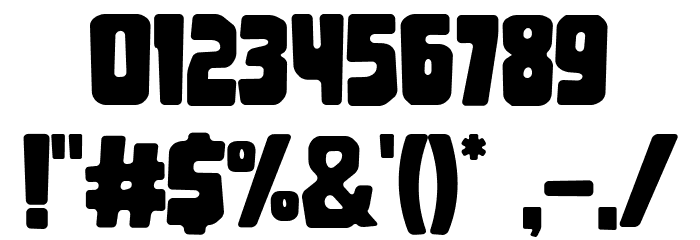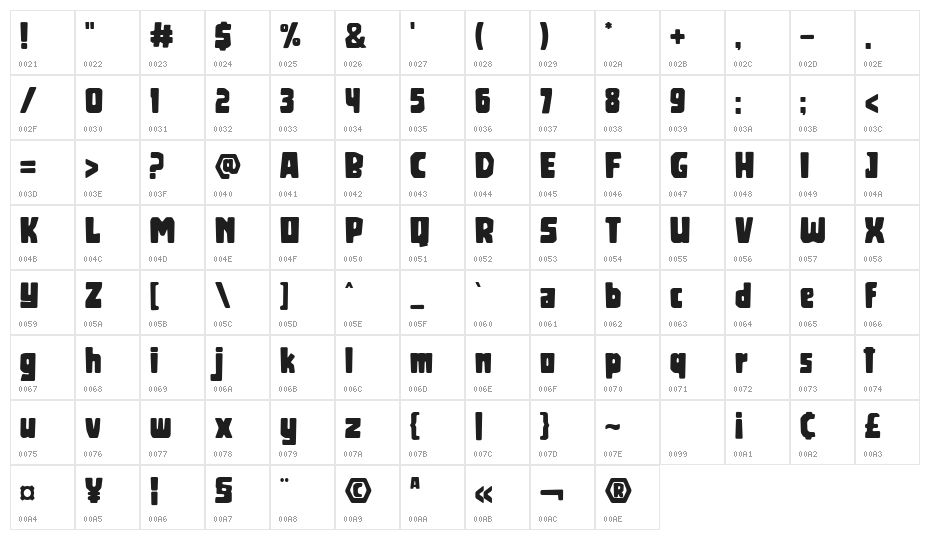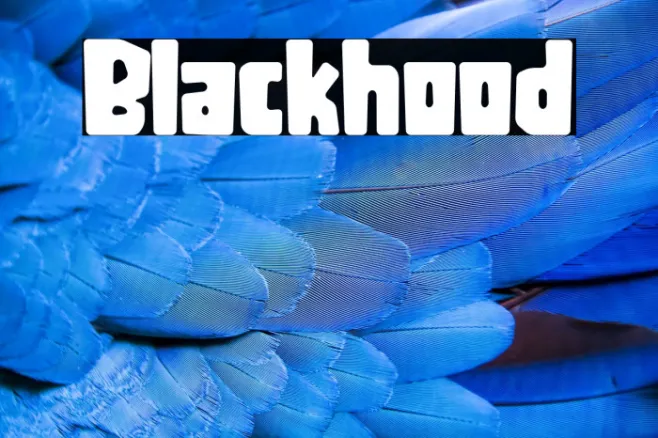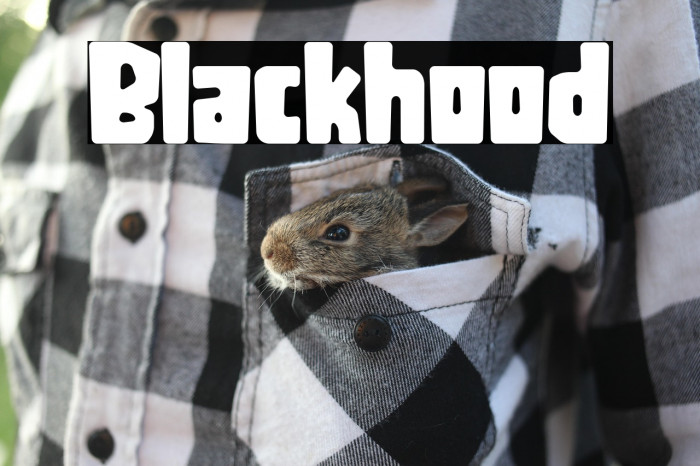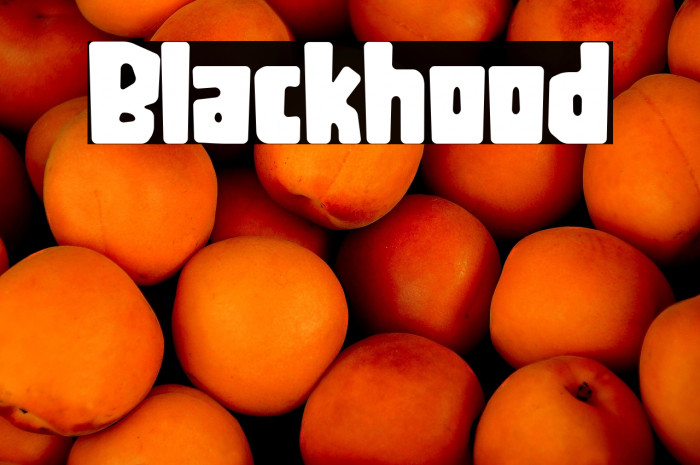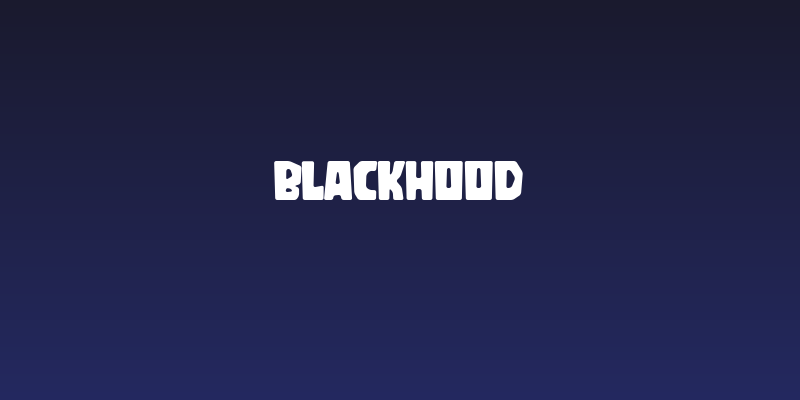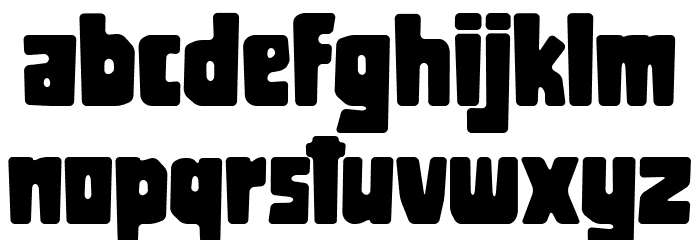
Blackhood Font
Blackhood Description
This font features a bold and chunky design with a playful and slightly irregular shape, giving it a unique and eye-catching appearance. The characters are wide and have a strong presence, making them ideal for attention-grabbing headlines or titles. The uppercase and lowercase letters maintain a consistent style, with rounded edges and a slightly uneven baseline that adds to the font's quirky charm. The numbers and special characters are equally bold, ensuring a cohesive look across all text elements.
| Overall Style | Playful, Quirky |
| Proposed Projects | Ideal for posters, logos, children's books, and any project needing a fun, bold statement. |